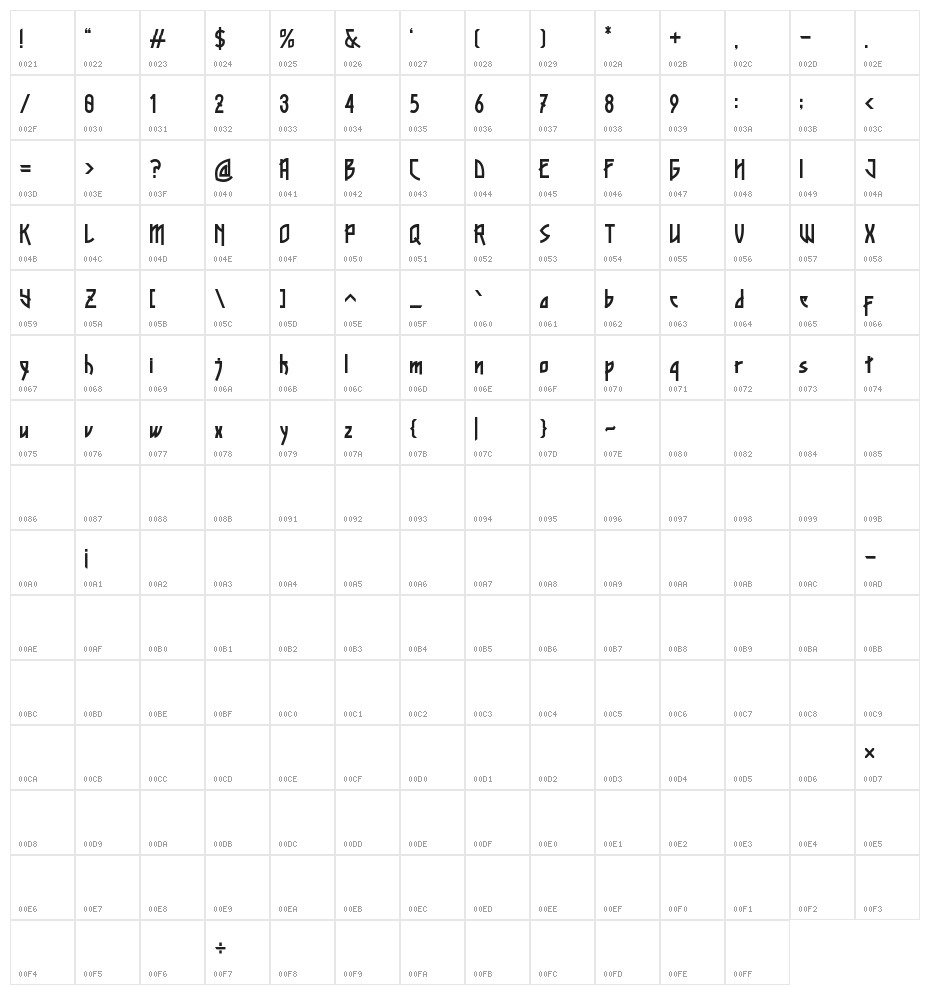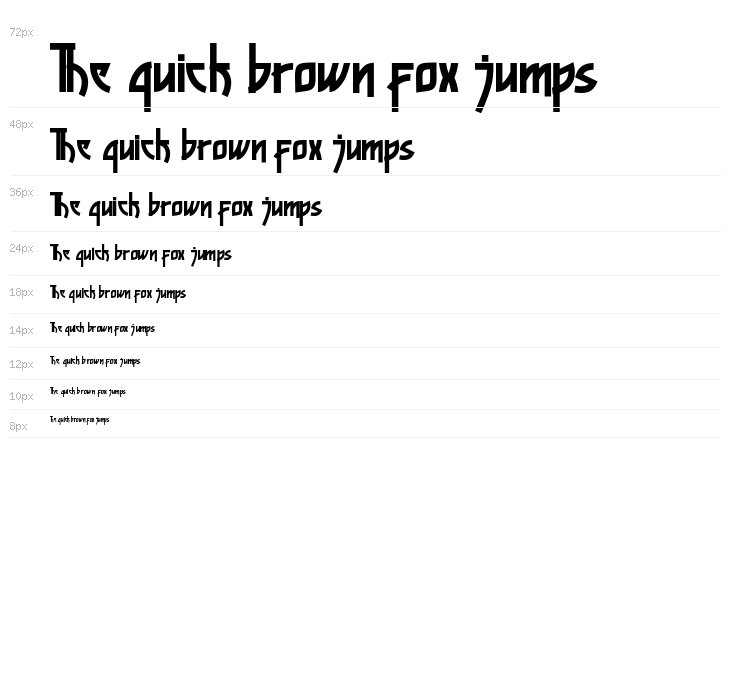
Xylene Font
Xylene Description
This font features a bold and angular design, characterized by sharp edges and geometric shapes. The uppercase letters are particularly striking, with a futuristic and edgy appearance that commands attention. The lowercase letters maintain the same angular style, creating a cohesive look throughout the typeface. Numbers and special characters are designed with the same attention to detail, ensuring consistency across all elements. The font's unique style makes it ideal for projects that require a modern and bold aesthetic.
| Proposed Projects | Ideal for branding, posters, album covers, and any project needing a modern, bold aesthetic. |